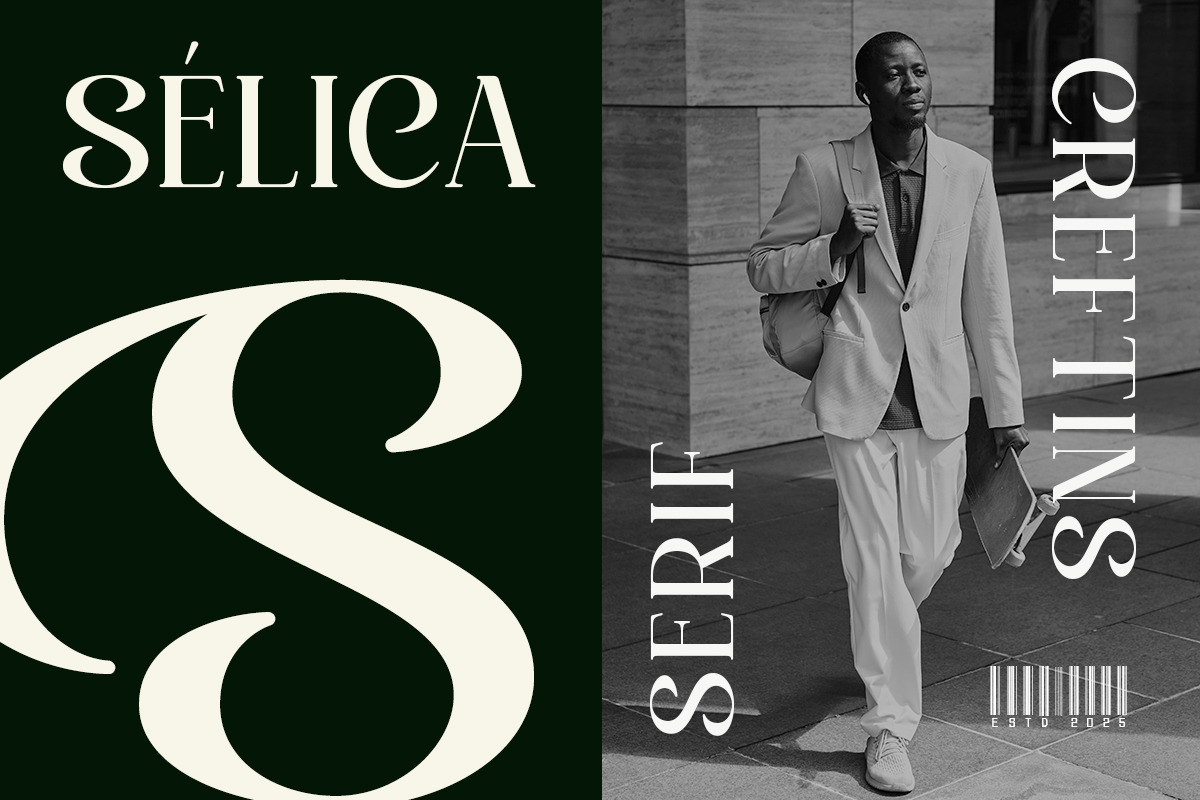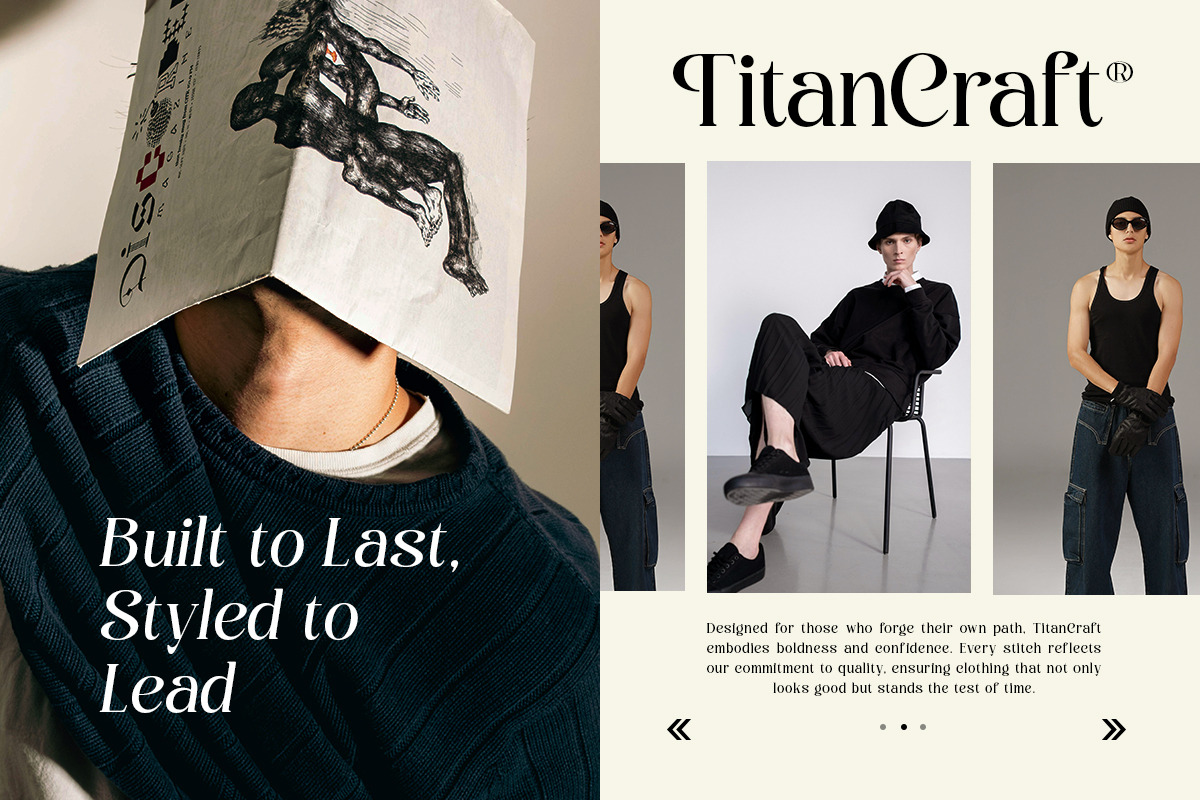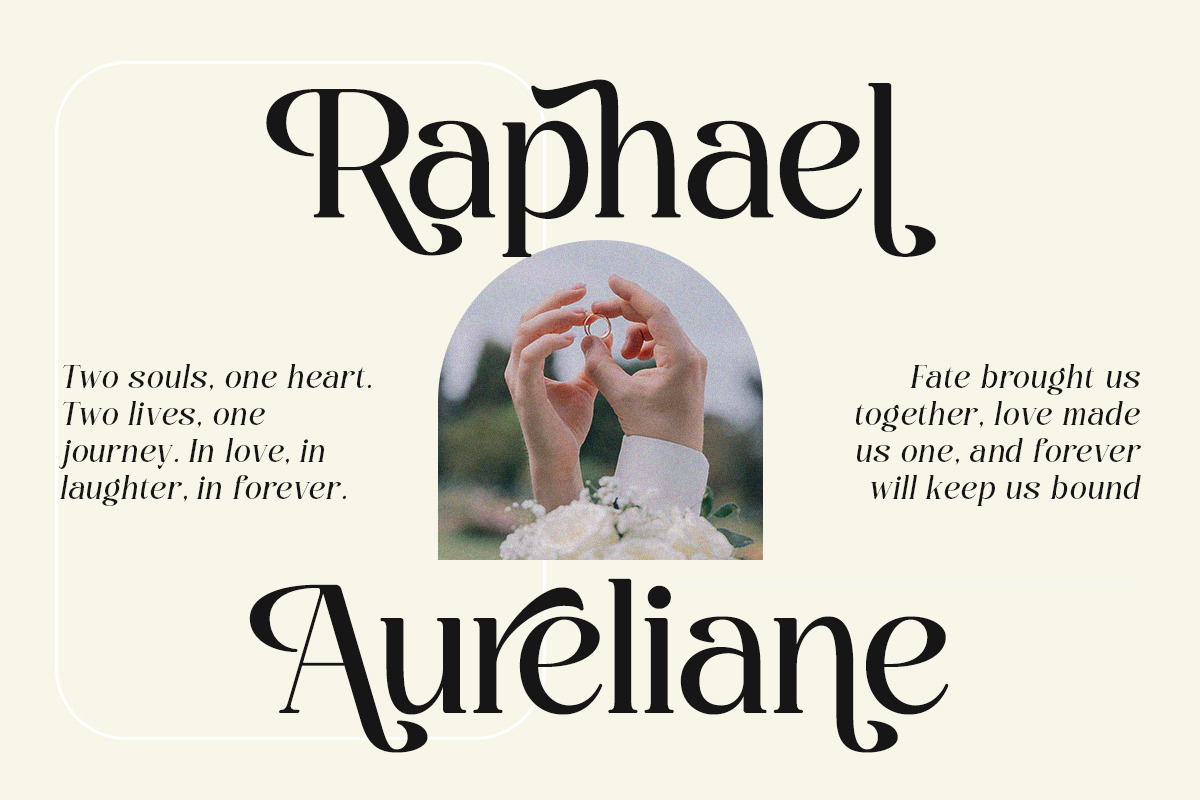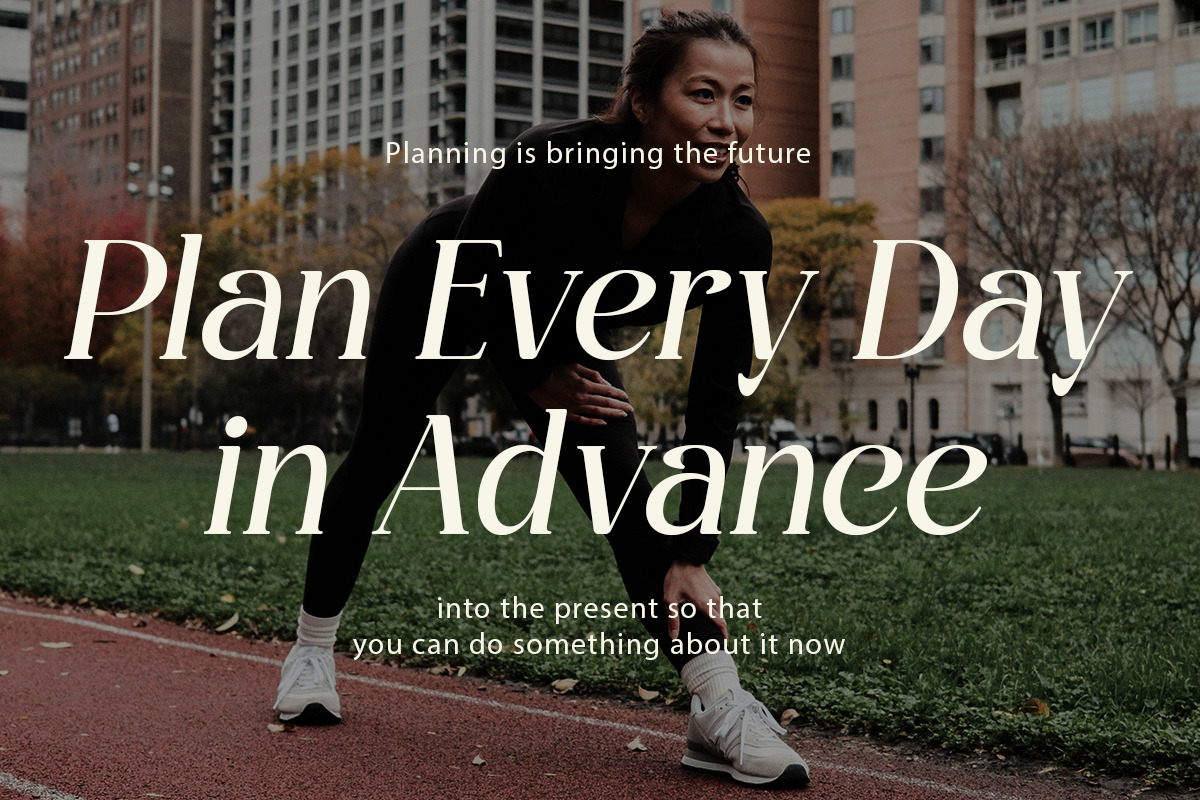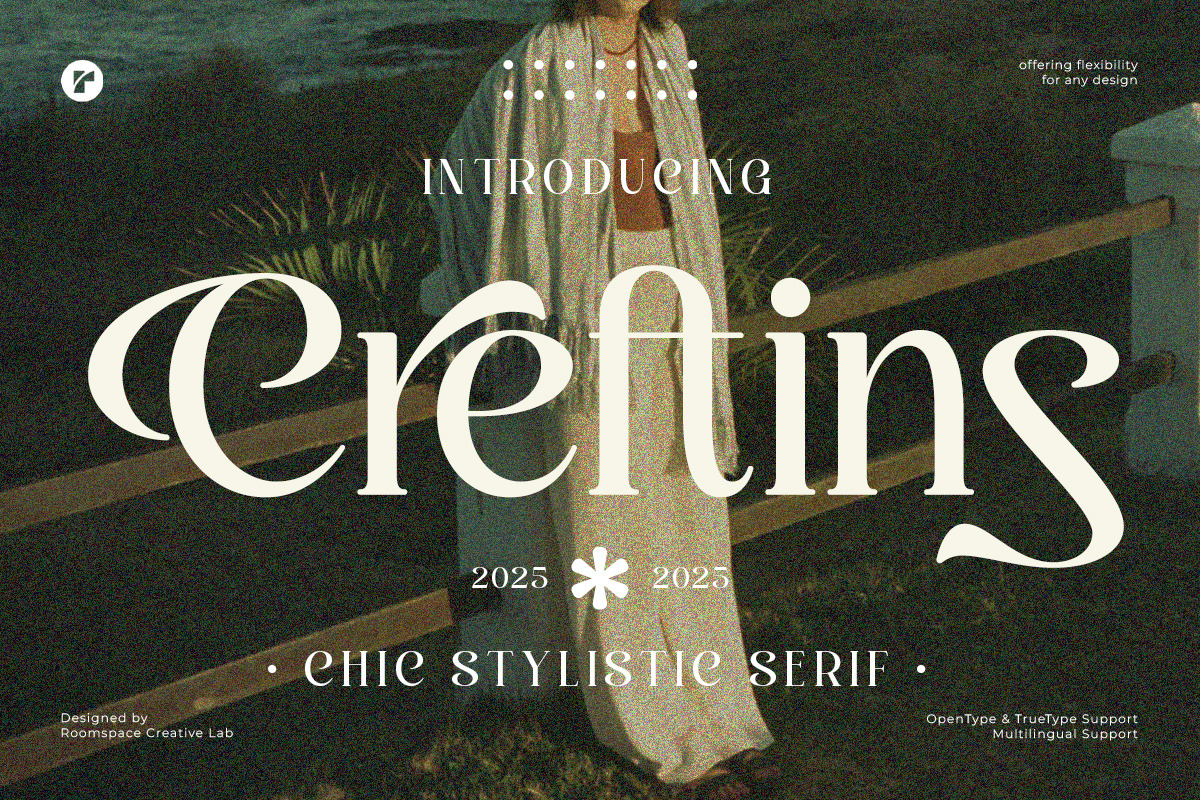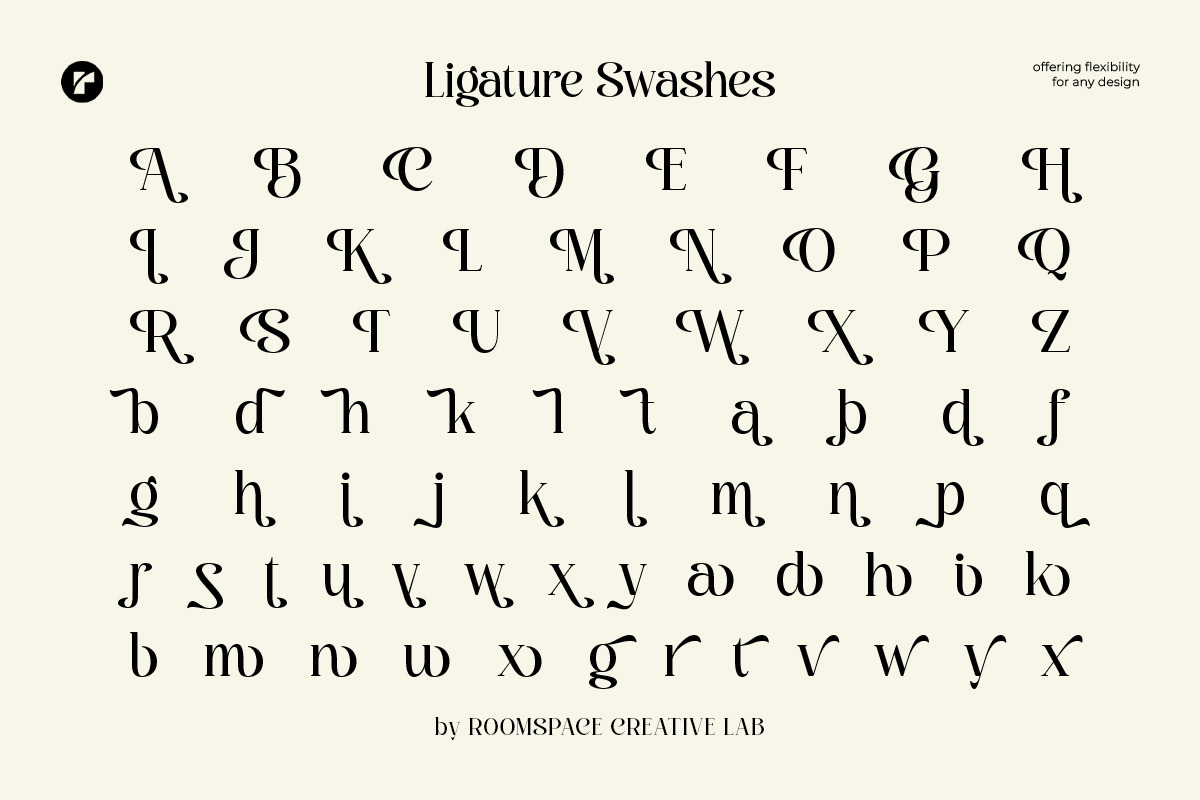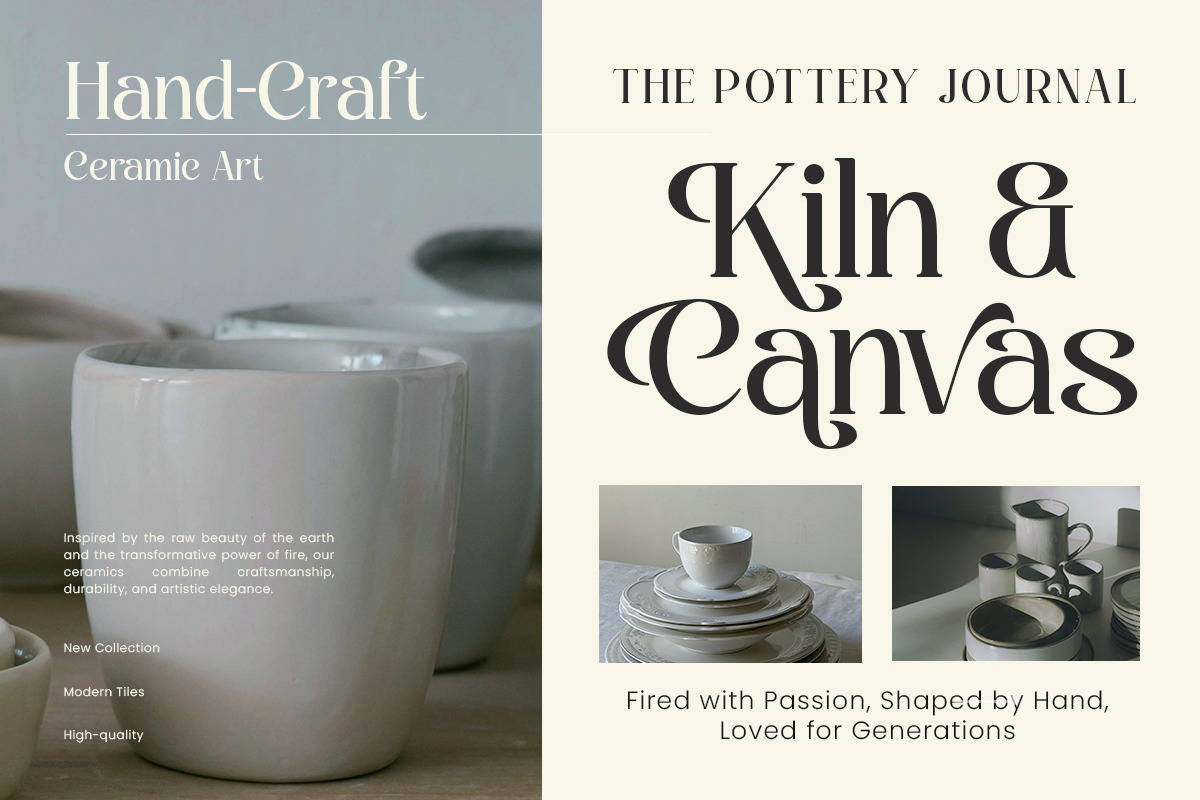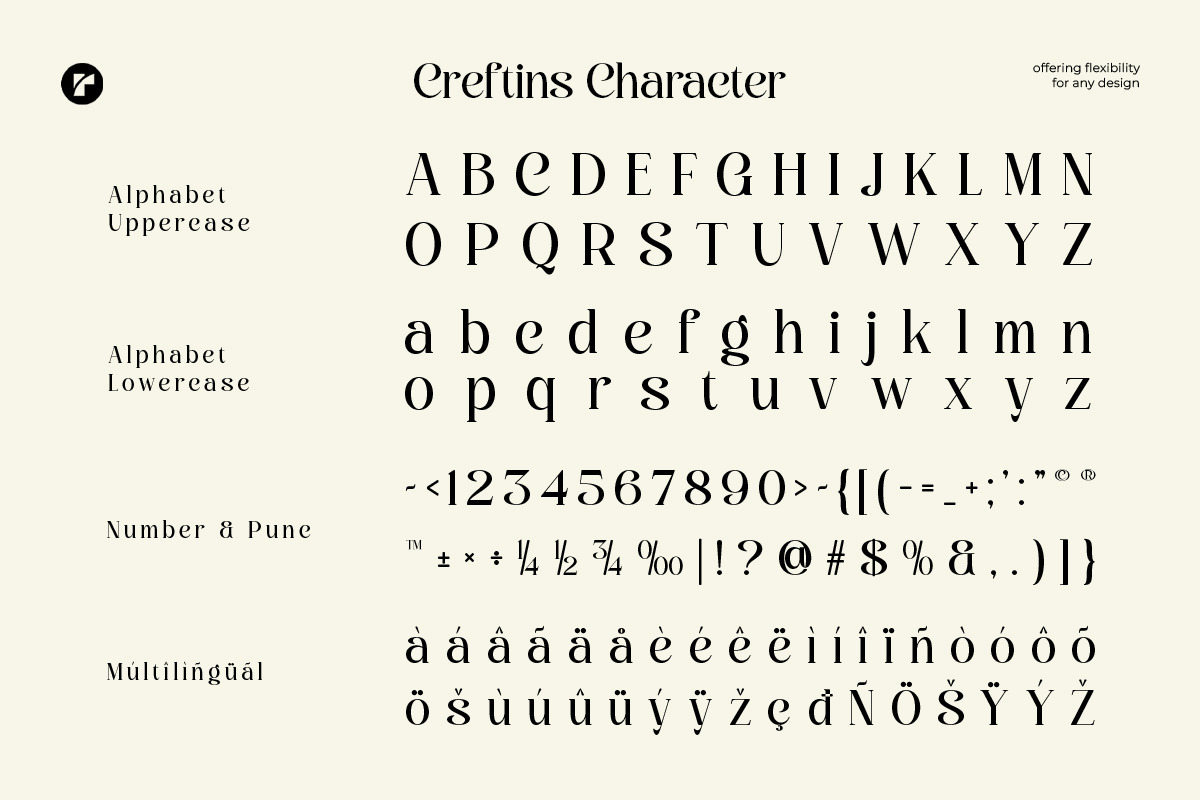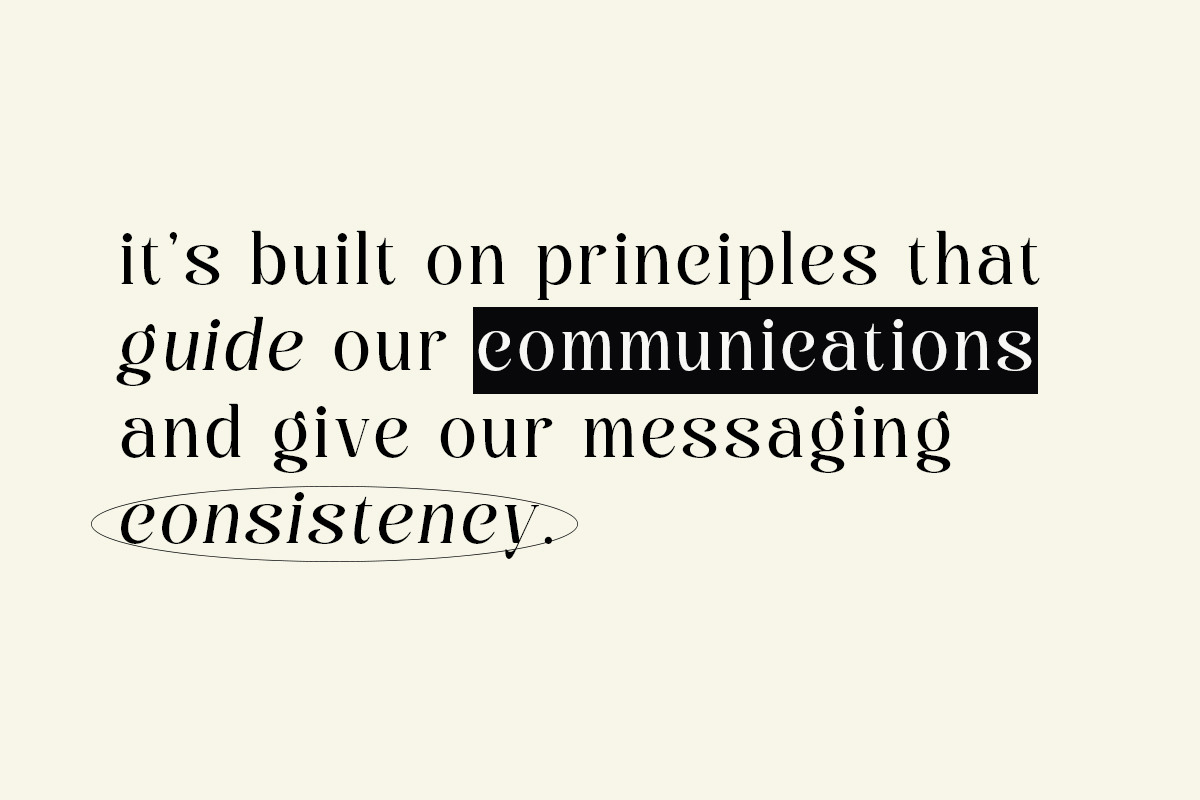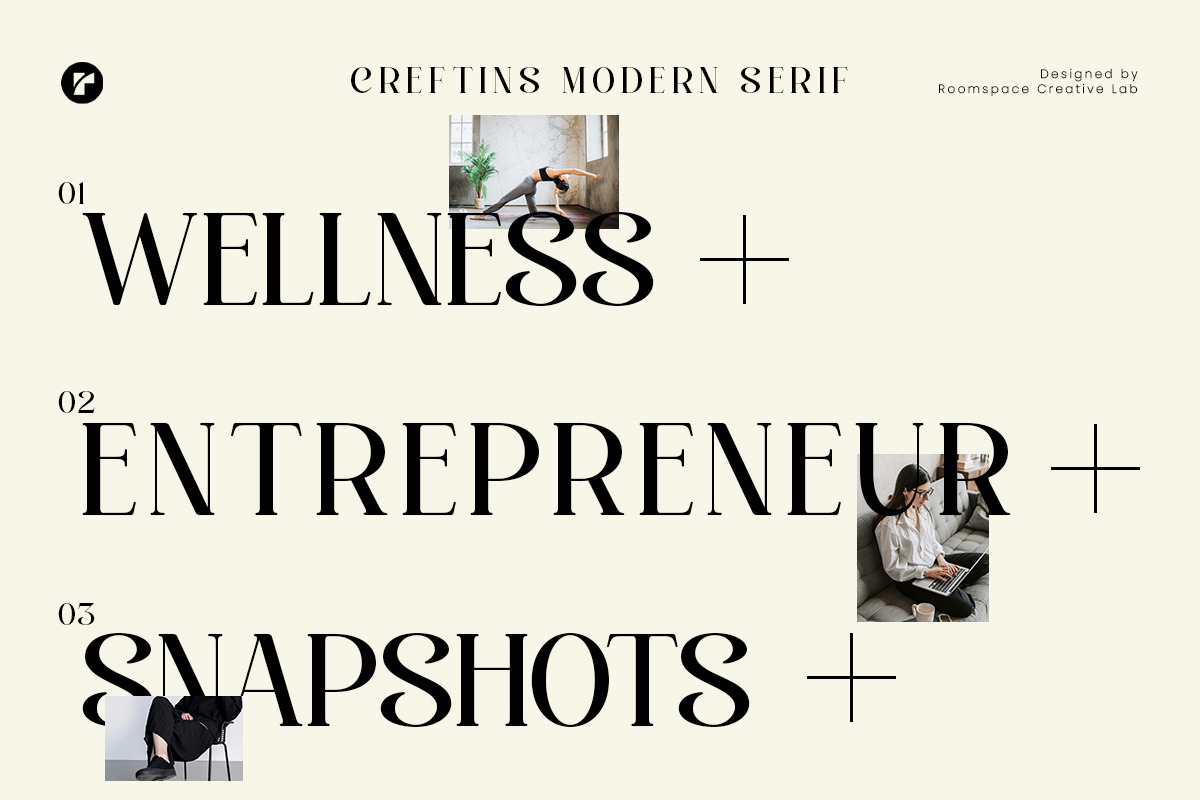
Creftins – Chic Stylistic Serif Font
Creftins, a sophisticated serif font that seamlessly blends modern luxury with classic refinement. Designed for those who appreciate stylish typography, Creftins offers elegant letterforms with a contemporary edge, making it an excellent choice for branding, high-end packaging, editorial design, and fashion-forward projects.
What makes Creftins truly special is its elegant stylistic alternates, beautifully crafted swashes, and refined ligatures, allowing you to create typography that feels unique and effortlessly luxurious. The graceful curves and tailored letterforms add a sense of sophistication, while its versatile nature makes it perfect for logos, magazine layouts, product packaging, wedding invitations, and upscale social media content
- Regular & Italic